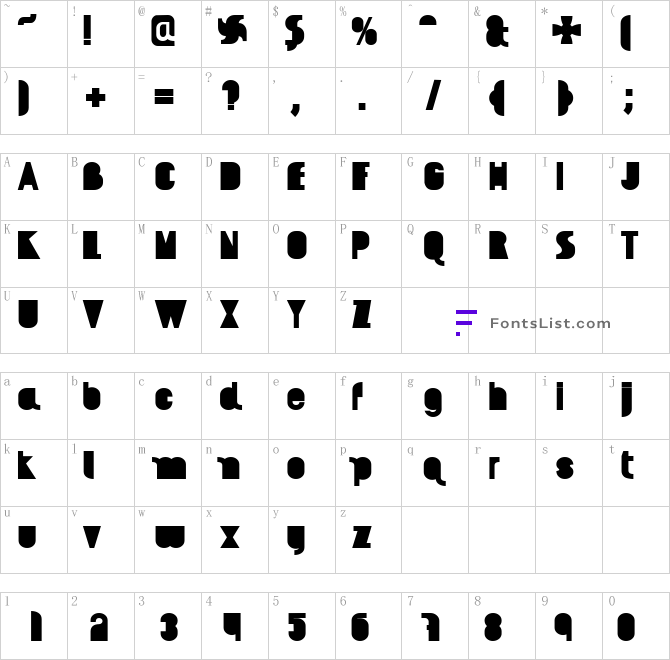
- Font Name:AI kelso
- Full Name:AI kelso BL
- Copyright:Copyright (c) 2005,2006 RITCHTYPE. All Rights Reserved.AI kelso is a registered trademark of RITCHTYPE typefoundry. Designed by Ritchie Ned Hansel,2005.
AI-kelso-BL.ttf is a very beautiful artistic font, AI-kelso-BL.ttf is widely used in the design and printing of various books and pictures,AI-kelso-BL.ttf has a strong visual impact,AI-kelso-BL.ttf is a commonly used font in newspapers, magazines and books, and is used in posters, e-commerce Poster design, store design, logo design, font design and other fields.AI-kelso-BL.